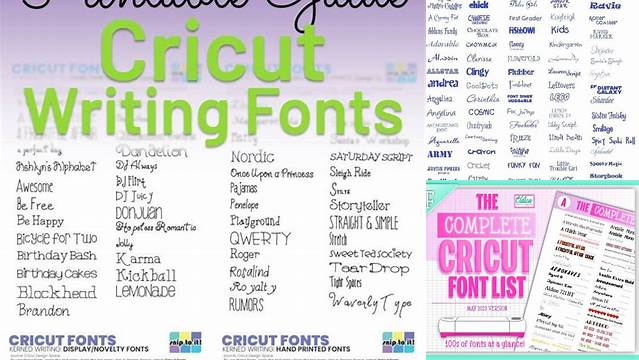
Cricut Font Guide: Your Ultimate PDF List & Tips
Hey Cricut crafters! Ever feel overwhelmed by the sheer number of fonts out there when you're designing your next project? You're not alone! Figuring out which fonts work best with your Cricut machine, where to find them, and how to use them can be a real head-scratcher. That's why we've put together this ultimate guide to Cricut fonts, complete with a handy-dandy PDF list and tons of tips to make your crafting life easier. Let's dive in!
1. Understanding Cricut Compatible Fonts
So, what exactly makes a font "Cricut compatible?" Well, Cricut compatible fonts need to be in a format that Cricut Design Space can recognize and work with. Generally, this means OpenType (.OTF) or TrueType (.TTF) fonts. These formats are widely supported and ensure that your text will display correctly within the software. But it's not just about the format, guys. Some fonts, especially script fonts, might have intricate connections (ligatures) that don't always translate perfectly in Cricut Design Space. Understanding these nuances will save you a ton of frustration down the line. Think about it – you spend hours designing, only to find out your font is all wonky when you go to cut. Nobody wants that! Always test your fonts, especially the fancy ones, before committing to a big project. A quick test cut on some scrap material can be a lifesaver. Also, remember that Cricut Design Space has its own set of system fonts that are readily available. These are usually a safe bet if you're just starting out or need a reliable option. You can also upload your own fonts, which opens up a whole world of creative possibilities! Just make sure they're in the right format and that you have the necessary licenses if you're using them for commercial purposes.
5. Best Cricut Fonts for Vinyl Cutting
When it comes to vinyl cutting, not all fonts are created equal. Some fonts cut cleanly and easily, while others can be a nightmare. The best Cricut fonts for vinyl cutting are generally those with thicker lines and simpler designs. Thin, delicate fonts can be difficult to weed, and intricate fonts can cause your Cricut to struggle with the cuts. Sans-serif fonts like Arial, Helvetica, and Futura are always a good choice for vinyl cutting. They're clean, simple, and easy to read. Slab-serif fonts like Rockwell and Courier are also good options. Script fonts can be tricky, but there are some that work well for vinyl cutting. Look for script fonts with thicker lines and fewer flourishes. Avoid fonts with super thin lines or intricate details, as these can be difficult to weed. Also, consider the size of your design. Smaller fonts will be more difficult to cut and weed than larger fonts. When in doubt, do a test cut on some scrap vinyl to see how the font cuts before committing to a large project. And one more tip: use a sharp blade! A dull blade can cause your Cricut to tear the vinyl, making it difficult to weed. Replace your blade regularly to ensure clean, crisp cuts.
6. Top Cricut Fonts for Card Making
Cricut fonts for card making need to be versatile and visually appealing. You want fonts that are easy to read but also add a touch of personality to your cards. Script fonts are a popular choice for card making, as they can add a touch of elegance and sophistication. However, make sure to choose a script font that is easy to read and not too ornate. Sans-serif fonts are also a great option for card making, especially for body text. They're clean, simple, and easy to read, making them perfect for conveying your message. Serif fonts can also be used for card making, but they're best used sparingly, as they can sometimes look a bit too formal. When choosing fonts for card making, consider the overall style of your card. If you're making a rustic card, you might want to choose a font that has a more hand-lettered feel. If you're making a modern card, you might want to choose a clean, sans-serif font. Also, think about the occasion. A birthday card might call for a more playful font, while a sympathy card might call for a more somber font. And don't be afraid to mix and match fonts! Pairing a script font with a sans-serif font can create a visually interesting and balanced design.
7. Exploring Cricut Font Pairings
Cricut font pairings are essential for creating visually appealing and balanced designs. Choosing the right font combinations can elevate your projects from looking amateur to professional. The key is to find fonts that complement each other without clashing. A general rule of thumb is to pair a serif font with a sans-serif font. For example, you could pair Times New Roman (serif) with Arial (sans-serif). This creates a nice contrast and makes the text easy to read. Another popular pairing is a script font with a sans-serif font. This is a great way to add a touch of elegance and personality to your designs. Just make sure the script font is easy to read and not too ornate. When choosing font pairings, consider the overall style of your project. If you're creating a modern design, you might want to choose two sans-serif fonts that have different weights or styles. If you're creating a vintage design, you might want to choose a serif font with a more classic feel. Also, pay attention to the spacing between the letters and words. Adjust the kerning and tracking to create a balanced and visually appealing layout. And don't be afraid to experiment! Try different font combinations and see what works best for your project. There are tons of resources online that can help you find font pairings, such as FontPair and Canva's Font Combinations tool.
8. Using System Fonts in Cricut Design Space
Using system fonts in Cricut Design Space is a great way to get started with your projects, as these fonts are readily available and don't require any downloading or installation. System fonts are the fonts that are pre-installed on your computer or device. Cricut Design Space automatically detects these fonts and makes them available for use in your projects. While system fonts might not be as exciting or unique as some of the fonts you can download online, they're a reliable and versatile option for a variety of projects. Sans-serif fonts like Arial, Helvetica, and Calibri are good choices for body text and headings. Serif fonts like Times New Roman and Georgia are also good options for body text, especially in longer documents. Script fonts like Brush Script and Lucida Handwriting can be used for headings or accents, but they should be used sparingly, as they can be difficult to read in large amounts of text. When using system fonts, keep in mind that they might look slightly different on different devices or operating systems. This is because different devices and operating systems have different font rendering engines. To ensure consistency, it's always a good idea to test your designs on different devices before finalizing them. Also, remember that you can customize system fonts by changing their size, color, and style. You can also add effects like bold, italic, and underline to create a more visually appealing design.
9. Monogram Fonts for Cricut
Monogram fonts for Cricut are super popular for personalizing everything from clothing to home decor. They add a touch of elegance and sophistication to any project. When choosing a monogram font, consider the style of the project. If you're creating a classic monogram, you might want to choose a serif font like Times New Roman or Garamond. If you're creating a more modern monogram, you might want to choose a sans-serif font like Arial or Helvetica. There are also many decorative monogram fonts available that feature intricate swirls and flourishes. These fonts can add a touch of personality to your monograms. When creating a monogram, the traditional format is to have the last name initial in the center, slightly larger than the first and middle name initials. However, you can also choose to have all three initials the same size. In Cricut Design Space, you can create a monogram by using the "Text" tool and typing in the initials. You can then adjust the size, spacing, and alignment of the letters to create the desired effect. You can also use the "Weld" tool to connect the letters together, creating a seamless monogram design. Monogram fonts are great for personalizing gifts, creating custom apparel, and adding a touch of elegance to your home decor. They're also a popular choice for wedding invitations and stationery.
10. Script Fonts and Cricut: A Guide
Script fonts and Cricut can be a match made in heaven, but they can also be a bit tricky to work with. Script fonts are fonts that resemble handwriting, and they can add a touch of elegance and personality to your Cricut projects. However, because they're often more delicate and intricate than other types of fonts, they require a bit more care and attention when cutting. When choosing a script font for your Cricut project, consider the size and complexity of the design. Smaller, more intricate script fonts can be difficult to cut and weed, especially if you're working with vinyl. Look for script fonts with thicker lines and fewer flourishes to make the cutting and weeding process easier. Also, make sure the script font is easy to read. Some script fonts are so ornate that they're difficult to decipher. In Cricut Design Space, you can adjust the letter spacing and kerning of script fonts to create a more seamless and flowing design. You can also use the "Weld" tool to connect the letters together, creating a single, continuous cut line. This is especially important for script fonts, as it prevents the letters from being cut out individually. Script fonts are great for adding a personal touch to cards, invitations, and home decor. They're also a popular choice for creating custom apparel and accessories.
11. Decorative Fonts for Cricut Crafts
Unleash your creativity with decorative fonts for Cricut crafts. These fonts are all about adding flair and personality to your projects. Think whimsical, playful, and eye-catching designs that instantly grab attention. Decorative fonts come in a huge variety of styles, from vintage-inspired to modern and geometric. When choosing a decorative font, consider the overall theme and style of your project. A whimsical font might be perfect for a child's birthday card, while a vintage font might be more suitable for a rustic wedding invitation. In Cricut Design Space, you can experiment with different decorative fonts to see which ones work best for your project. You can also adjust the size, color, and spacing of the letters to create a unique and personalized design. Decorative fonts are great for adding a touch of fun and personality to cards, invitations, signs, and home decor. They're also a popular choice for creating custom apparel and accessories. Just remember to use them sparingly, as too many decorative fonts can make your design look cluttered and overwhelming.
12. Handwritten Fonts for a Personal Touch
For a truly personal touch, explore handwritten fonts. These fonts mimic the look of actual handwriting, adding a warm and authentic feel to your Cricut projects. Handwritten fonts are perfect for creating heartfelt cards, personalized gifts, and cozy home decor. When choosing a handwritten font, consider the style and personality you want to convey. A neat and legible handwritten font might be suitable for a thank you note, while a more whimsical and quirky handwritten font might be perfect for a child's artwork. In Cricut Design Space, you can adjust the size, spacing, and color of handwritten fonts to create a unique and personalized design. You can also add embellishments like doodles and flourishes to further enhance the handwritten effect. Handwritten fonts are great for adding a personal touch to cards, invitations, scrapbook pages, and home decor. They're also a popular choice for creating custom labels and stickers. Just remember to choose a handwritten font that is easy to read and fits the overall style of your project.
13. Bold Fonts for Cricut: Making a Statement
Want to make a statement? Bold fonts for Cricut are your go-to choice. These fonts command attention and are perfect for headings, titles, and any element you want to emphasize. Bold fonts come in a variety of styles, from classic and traditional to modern and edgy. When choosing a bold font, consider the overall style of your project and the message you want to convey. A classic bold font like Arial Black or Impact might be suitable for a professional presentation, while a more modern bold font like Montserrat or Bebas Neue might be perfect for a website header. In Cricut Design Space, you can easily make any font bold by selecting the "Bold" option in the font formatting menu. You can also adjust the size, color, and spacing of bold fonts to create a visually striking design. Bold fonts are great for headings, titles, logos, and any element you want to stand out. They're also a popular choice for creating signs, banners, and posters. Just remember to use them strategically, as too much bold text can make your design look overwhelming.
14. Thin Fonts: Elegance and Subtlety in Cricut
For a touch of elegance and subtlety, consider thin fonts. These fonts are delicate and refined, adding a sophisticated touch to your Cricut projects. Thin fonts are perfect for invitations, stationery, and any project where you want to convey a sense of grace and refinement. When choosing a thin font, make sure it is legible and easy to read, even at smaller sizes. Some thin fonts can be too delicate and may not cut well on your Cricut, so it's always a good idea to do a test cut before committing to a large project. In Cricut Design Space, you can adjust the size, spacing, and color of thin fonts to create a visually appealing design. You can also pair thin fonts with bolder fonts to create a balanced and harmonious look. Thin fonts are great for invitations, stationery, logos, and any project where you want to convey a sense of elegance and refinement. They're also a popular choice for creating monograms and delicate embellishments.
15. Layering Fonts in Cricut Projects
Layering fonts in Cricut projects is a fantastic way to add depth, dimension, and visual interest to your designs. By combining different fonts and layering them on top of each other, you can create a unique and eye-catching effect. When layering fonts, it's important to choose fonts that complement each other in terms of style, weight, and readability. A good starting point is to pair a bold font with a thinner font, or a script font with a sans-serif font. In Cricut Design Space, you can layer fonts by placing them on top of each other in the design canvas. You can then adjust the size, color, and position of each font layer to create the desired effect. You can also use the "Slice" tool to cut out shapes from the underlying font layer, revealing the font below. Layering fonts is a great way to create custom logos, monograms, and decorative elements. It's also a popular technique for adding dimension to scrapbook pages and greeting cards. Just remember to keep the design balanced and easy to read, and don't be afraid to experiment with different font combinations and layering techniques.
16. Distressed Fonts: Adding a Vintage Feel
To infuse your Cricut projects with a vintage feel, distressed fonts are the perfect choice. These fonts feature textures and imperfections that mimic the look of aged or worn-out lettering, adding character and authenticity to your designs. Distressed fonts come in a variety of styles, from subtle and weathered to bold and grungy. When choosing a distressed font, consider the overall style of your project and the level of distress you want to achieve. A subtly distressed font might be suitable for a vintage-inspired wedding invitation, while a more grungy distressed font might be perfect for a rock-and-roll t-shirt design. In Cricut Design Space, you can adjust the size, color, and spacing of distressed fonts to create a unique and personalized design. You can also combine distressed fonts with other vintage-inspired elements, such as antique graphics and aged paper textures, to create a cohesive and authentic look. Distressed fonts are great for adding a vintage feel to signs, posters, t-shirts, and home decor. They're also a popular choice for creating custom logos and branding materials with a retro vibe.
17. Calligraphy Fonts for Cricut: Elegance Defined
Calligraphy fonts for Cricut embody elegance and sophistication, perfect for projects that demand a touch of refined beauty. These fonts mimic the fluid strokes of traditional calligraphy, adding a touch of artistry and grace to your designs. Calligraphy fonts come in a variety of styles, from classic and formal to modern and whimsical. When choosing a calligraphy font, consider the overall style of your project and the level of formality you want to convey. A classic calligraphy font like Zapf Chancery or Edwardian Script might be suitable for a wedding invitation, while a more modern calligraphy font like Brush Script MT or Pacifico might be perfect for a thank you note. In Cricut Design Space, you can adjust the size, spacing, and color of calligraphy fonts to create a visually stunning design. You can also use the "Weld" tool to connect the letters together, creating a seamless and flowing script. Calligraphy fonts are great for adding a touch of elegance to invitations, stationery, monograms, and home decor. They're also a popular choice for creating custom signage and personalized gifts.
18. Cursive Fonts: Connecting Letters Seamlessly
Cursive fonts are designed to connect letters seamlessly, creating a flowing and elegant script that adds a touch of personality to your Cricut projects. These fonts are perfect for adding a handwritten feel to invitations, cards, and personalized gifts. When choosing a cursive font, consider the legibility and overall style of the font. Some cursive fonts can be difficult to read, especially at smaller sizes, so it's important to choose a font that is both beautiful and easy to understand. In Cricut Design Space, you can adjust the spacing and kerning of cursive fonts to ensure that the letters connect smoothly and create a cohesive design. You can also use the "Weld" tool to join the letters together, creating a single, continuous shape that is easier to cut and weed. Cursive fonts are great for adding a personal touch to wedding invitations, thank you notes, birthday cards, and other special occasion projects. They're also a popular choice for creating custom monograms and personalized home decor.
19. Block Fonts: Simplicity and Readability
Block fonts are characterized by their simplicity and readability, making them an excellent choice for a wide range of Cricut projects. These fonts feature clean, geometric shapes that are easy to read and understand, even at small sizes. Block fonts are perfect for creating signs, labels, banners, and other projects where clear and concise communication is essential. When choosing a block font, consider the overall style of your project and the message you want to convey. A classic block font like Arial or Helvetica is a versatile choice that can be used in almost any project, while a more modern block font like Futura or Bebas Neue can add a contemporary touch to your designs. In Cricut Design Space, you can adjust the size, color, and spacing of block fonts to create a visually appealing and easy-to-read design. Block fonts are great for creating signs, labels, banners, posters, and other projects where clarity and readability are paramount. They're also a popular choice for creating logos and branding materials.
20. Shadow Fonts: Creating Depth and Dimension
Shadow fonts are designed to create the illusion of depth and dimension, adding a unique and eye-catching effect to your Cricut projects. These fonts feature a shadow or outline that extends behind the main letters, creating a sense of three-dimensionality. Shadow fonts are perfect for creating logos, titles, and other design elements that you want to stand out. When choosing a shadow font, consider the style and intensity of the shadow. Some shadow fonts feature a subtle shadow that adds a touch of depth, while others feature a more pronounced shadow that creates a dramatic effect. In Cricut Design Space, you can adjust the color and position of the shadow to customize the look of your shadow font. You can also layer shadow fonts on top of each other to create even more complex and visually interesting designs. Shadow fonts are great for creating logos, titles, posters, and other design elements that you want to grab attention. They're also a popular choice for creating personalized gifts and home decor.
21. Outline Fonts: Highlighting Your Text
Outline fonts are perfect for highlighting your text and creating a bold, eye-catching effect in your Cricut projects. These fonts feature a hollow center, with only the outline of the letters visible. Outline fonts are great for creating titles, logos, and other design elements that you want to stand out. When choosing an outline font, consider the thickness of the outline and the overall style of the font. A thicker outline will create a bolder effect, while a thinner outline will be more subtle. In Cricut Design Space, you can adjust the color of the outline and the fill of the interior to customize the look of your outline font. You can also layer outline fonts on top of solid fonts to create a unique and visually interesting design. Outline fonts are great for creating titles, logos, signs, posters, and other design elements that you want to be easily visible. They're also a popular choice for creating personalized gifts and home decor.
22. Bubble Fonts: Fun and Playful Designs
Inject some fun and playful vibes into your Cricut creations with bubble fonts! These fonts boast rounded, inflated letterforms that bring a lighthearted touch to any project. Bubble fonts are perfect for kids' crafts, party decorations, and anything that needs a dose of whimsy. When choosing a bubble font, consider the thickness of the lines and the overall shape of the letters. Some bubble fonts are more rounded and cartoonish, while others have a slightly more sophisticated feel. In Cricut Design Space, you can play around with the colors and sizes of your bubble fonts to create a truly unique design. Layering bubble fonts on top of each other can also add depth and dimension to your project. Bubble fonts are fantastic for birthday banners, children's room decor, playful greeting cards, and anything that calls for a cheerful, energetic look. Let your imagination run wild and see what bubbly creations you can come up with!
23. Stencil Fonts for Cricut: Easy Cutting
Stencil fonts are specially designed for easy cutting, making them a crafter's best friend! These fonts have breaks in the letterforms, preventing the inner parts of letters like "A," "O," and "P" from falling out when cut. This makes them ideal for stenciling projects on a variety of surfaces. When selecting a stencil font, look for clean, clear designs that are easy to weed. Thicker lines are generally easier to cut and more durable. In Cricut Design Space, simply choose your stencil font, size it appropriately, and send it to your machine for cutting. You can use stencil fonts to create custom signs, wall art, fabric designs, and more. They're also great for educational projects, helping kids learn letter recognition in a fun, hands-on way. So grab some stencil fonts and let your creativity flow!
24. Pixel Fonts: Retro Gaming Style
Embrace the retro gaming craze with pixel fonts! These fonts mimic the blocky, low-resolution style of early video games, adding a nostalgic touch to your Cricut projects. Pixel fonts are perfect for creating game-themed decorations, invitations, and personalized gifts for gamers. When choosing a pixel font, consider the level of detail and the overall aesthetic you're going for. Some pixel fonts are very simple and blocky, while others have more intricate designs. In Cricut Design Space, you can adjust the size and color of your pixel fonts to create a truly authentic retro look. Experiment with different layering techniques to add depth and dimension to your designs. Pixel fonts are awesome for creating arcade-themed parties, personalized gaming gear, and anything that celebrates the golden age of video games. Get your pixel on!
25. 3D Fonts: Adding Pop-Up Effects
Take your Cricut projects to the next dimension with 3D fonts! These fonts create a pop-up effect, adding depth and visual interest to your designs. 3D fonts are perfect for cards, invitations, and any project where you want to make a statement. When choosing a 3D font, consider the complexity of the design and your skill level. Some 3D fonts are easier to assemble than others. In Cricut Design Space, you'll typically need to cut multiple layers of the 3D font and then assemble them to create the final effect. Be sure to follow the instructions carefully to ensure a successful outcome. 3D fonts are fantastic for creating eye-catching cards, unique party decorations, and personalized gifts that really stand out. Get ready to impress with your 3D creations!
26. Serif vs Sans Serif Fonts for Cricut
Understanding the difference between serif and sans serif fonts is crucial for achieving the desired look and feel in your Cricut projects. Serif fonts have small decorative strokes at the ends of the letters, while sans serif fonts do not. Serif fonts tend to convey a more traditional and elegant feel, while sans serif fonts are generally considered more modern and clean. When choosing between serif and sans serif fonts, consider the overall style of your project and the message you want to convey. Serif fonts are often used for formal invitations, wedding stationery, and classic designs, while sans serif fonts are a popular choice for websites, logos, and contemporary projects. In Cricut Design Space, you can easily experiment with different serif and sans serif fonts to see which ones work best for your needs. Pairing a serif font with a sans serif font can also create a visually appealing and balanced design.
27. Legal Considerations When Using Fonts
Before you start using fonts in your Cricut projects, it's important to understand the legal considerations involved. Most fonts are copyrighted, which means that you need to have the proper license to use them, especially for commercial purposes. Many fonts are free for personal use but require a commercial license if you plan to sell items that incorporate the font. It's crucial to read the font's license agreement carefully before using it in your projects. Websites like Creative Market and Fontspring offer a wide selection of fonts with clear licensing terms. Using a font without the proper license can result in legal trouble, so it's always best to err on the side of caution. Protect yourself and respect the rights of font creators by ensuring you have the appropriate licenses for all the fonts you use.
28. Font Management Tips for Cricut Users
Keeping your fonts organized can save you a ton of time and frustration. Here are some font management tips for Cricut users: Create folders on your computer to organize your fonts by style, project, or license. Use a font management program like FontBase or NexusFont to easily preview and activate/deactivate fonts. Regularly clean up your font library by removing fonts you no longer use. Back up your font collection to an external hard drive or cloud storage service. When downloading fonts, always keep a copy of the license agreement in the same folder as the font file. By following these font management tips, you can keep your font library organized, accessible, and legally compliant.
29. Kerning and Leading: Fine-Tuning Your Text
Kerning and leading are essential typography techniques that can dramatically improve the appearance of your text in Cricut projects. Kerning refers to the spacing between individual letters, while leading (pronounced "ledding") refers to the spacing between lines of text. Adjusting the kerning can improve the readability and visual appeal of your text by ensuring that the letters are evenly spaced and balanced. Increasing or decreasing the leading can make your text more or less dense, depending on the desired effect. In Cricut Design Space, you can adjust the kerning and leading of your text using the font formatting options. Experiment with different kerning and leading values to see how they affect the overall look and feel of your text. Fine-tuning your text with kerning and leading can elevate your Cricut projects and make them look more professional.
30. Creating Custom Fonts for Cricut
For a truly unique and personalized touch, consider creating custom fonts for your Cricut projects! There are several font creation programs available, such as Fontself Maker and Calligraphr, that allow you to turn your own handwriting or drawings into a usable font. Creating a custom font can be a fun and rewarding experience, and it gives you complete control over the look and feel of your text. Once you've created your custom font, you can install it on your computer and use it in Cricut Design Space just like any other font. Creating custom fonts is a great way to add a personal touch to your cards, invitations, and personalized gifts. It's also a fun way to express your creativity and stand out from the crowd. So give it a try and see what amazing fonts you can create!